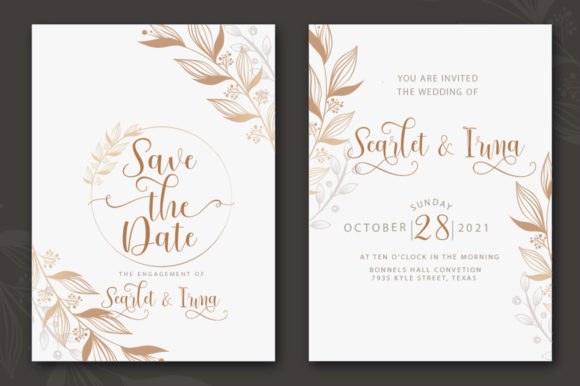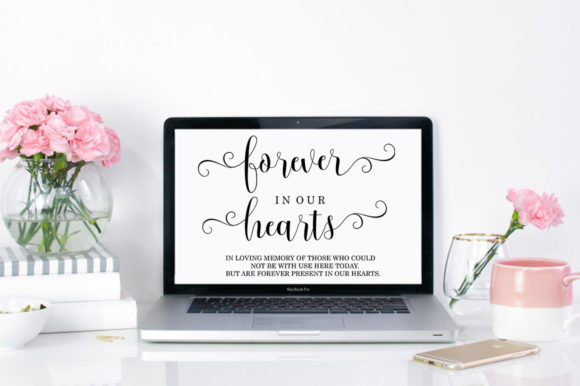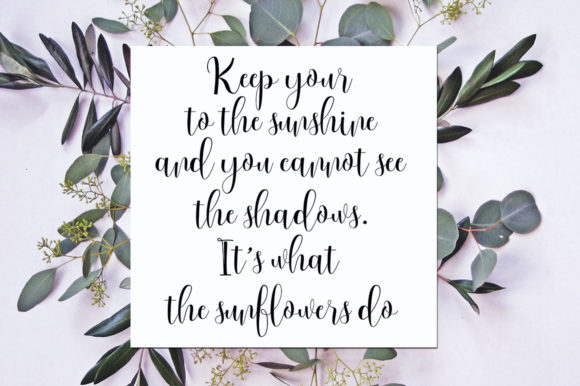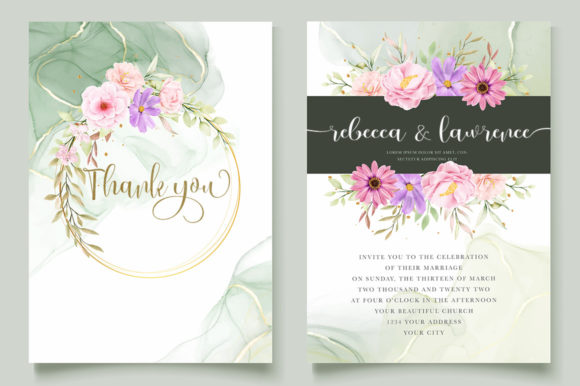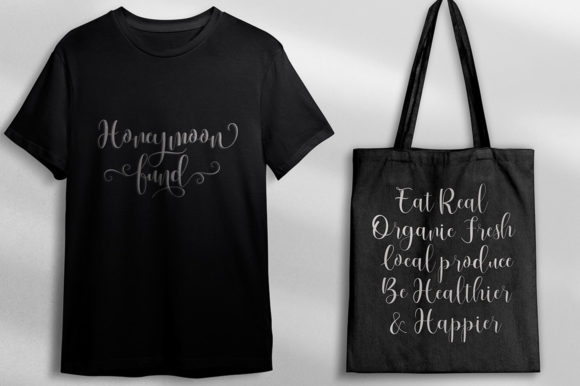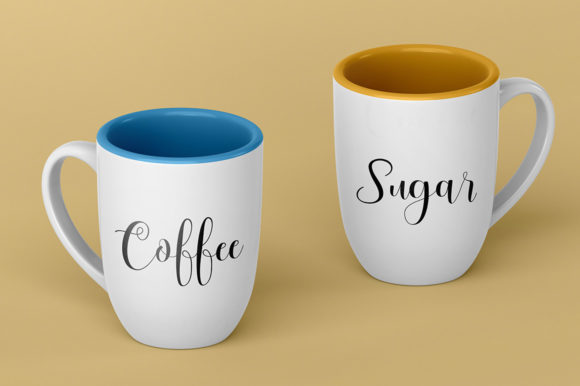
Introduction to Moringa Script Font
Remember the moment when you stumbled upon the perfect font to elevate your design project? For many of us, it’s a moment of pure excitement and relief. And today, we’re excited to share with you a fantastic discovery that’s sure to make your creative projects shine – the Moringa Script Font. This high-quality script font has captured the hearts of designers worldwide, and for good reason.
Whether you’re working on a romantic wedding invitation, a beautiful greeting card, or a stunning headline, the Moringa Script Font is an invaluable design resource that’s guaranteed to add a touch of elegance and sophistication. With its wide range of applications and transparent background, this fabulous font is available for a free download, making it an accessible design treasure trove for creatives everywhere.
Key Features of Moringa Script Font
- High-quality design: The Moringa Script Font is a beautiful, elegant script font ideal for creative projects, with a high level of detail and sophistication.
- Unique characteristics: The Moringa Script Font features a unique, flowing design with a mix of cursive and handwritten elements, making it perfect for adding a touch of elegance to any design.
Honest Review: Moringa Script Font
I recently had the chance to work with the Moringa Script Font, and I must say it’s been a pleasant experience. This high quality design resource has been a game-changer for my creative projects.
- ⚠️ Limited support for non-Latin scripts, which can be a drawback for international designers
- ⚠️ The font can be a bit difficult to read at smaller sizes, so it’s best used for headings and titles
The Moringa Script Font is ideal for use in various creative projects, including wedding invitations, birthday cards, and social media graphics. Its high quality and transparent background make it a versatile design resource for any project.